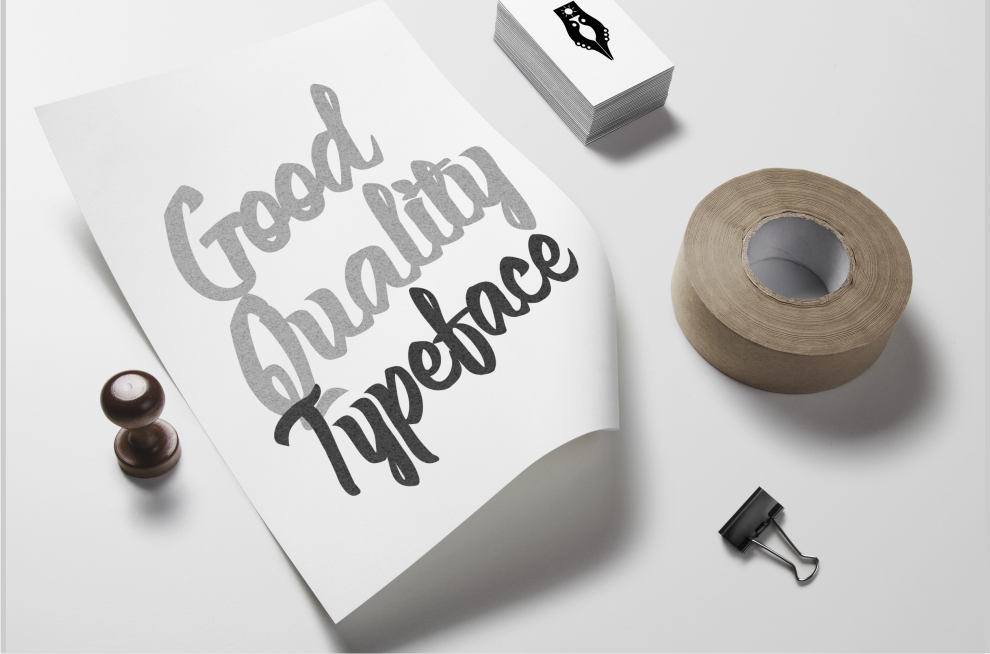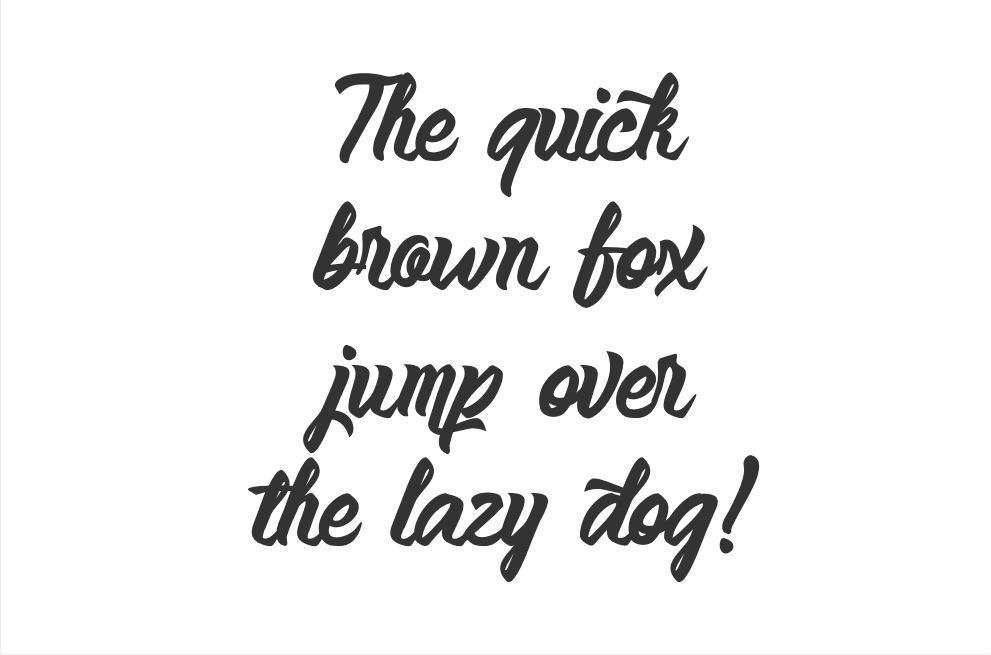
Anemone Fonts. Very cool for logos, name tag, handwritten quotes, product packaging, merchandise, social media & greeting cards. Anemone mime is all fun and games.
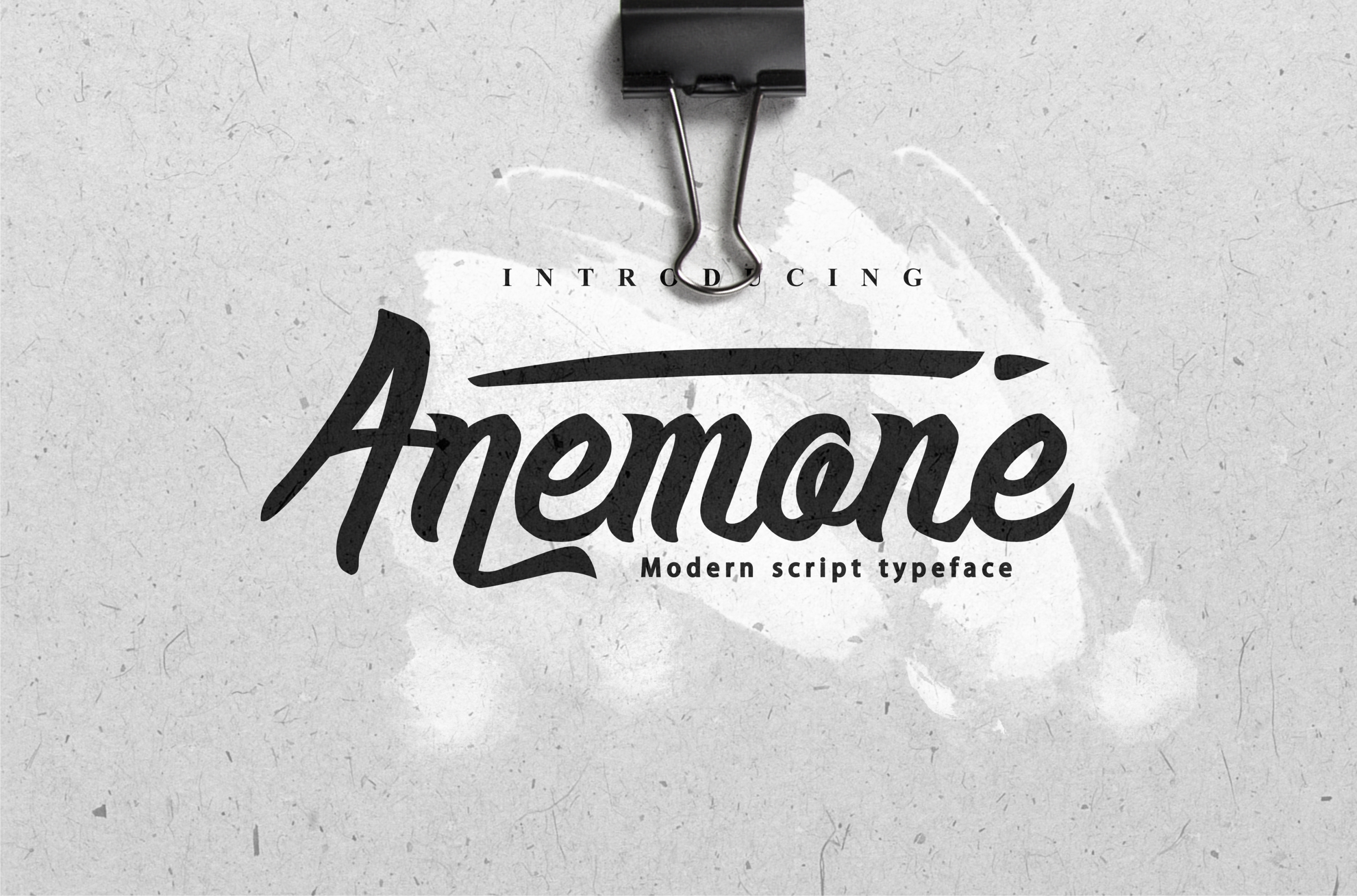
Great for logo design, clothing design, branding, posters, invitations and etc. Some fonts provided are trial versions of full versions and may not allow embedding unless a commercial license is purchased or may contain a limited character set. Also containing 150 alternate characters to create some beautiful typography.
While Based On A Fundamental Idea, The Result Is Just Plain Fun.
While some see the anemone as a bad omen, others see it as a sign of good fortune. Download the font you want from my repo. Make your design to stand out with anemone script!
Black anemone is handmade brush style font. Press ctrl+c/cmd+c to copy and esc to close this dialog. Download anemone script font (2 styles).
Anemone Brush Font Is A Bold And Brushed Display Font.
While based on a fundamental idea, This font is the one that is free on facebook a started 9/16/2016 one letter a day. While loitering on the boisterous and whacky side, anemone mime is also pleasantly readable in paragraph form.
It Contains A Full Set Of Lower & Uppercase Letters, A Large Range Of Punctuation, Numerals, And Multilingual Support.
Make your design to stand out with anemone script! The place for anemone fonts. While based on a fundamental idea, the result is just plain fun.